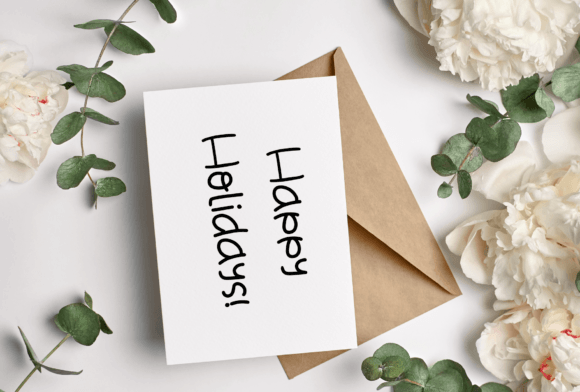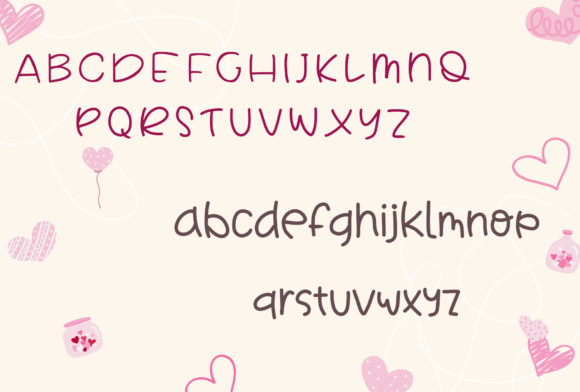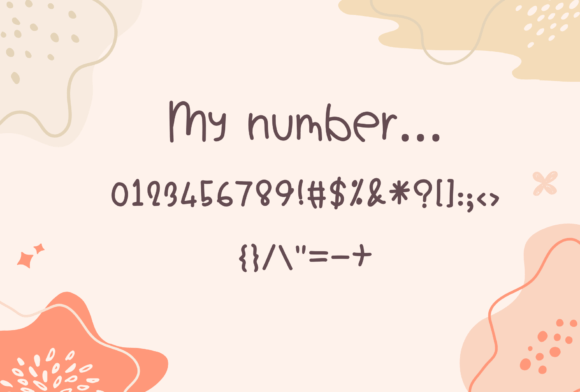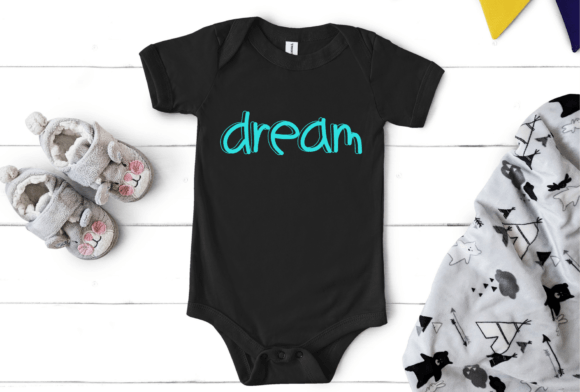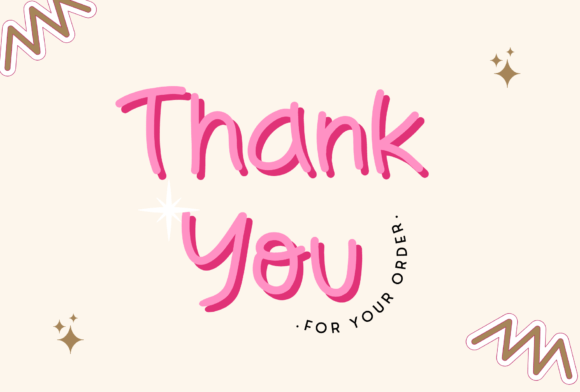
The Charm of Benjamin Font: A Designer’s New Best Friend
I’ll never forget the project that led me to discover the Benjamin Font. I was working on a children’s educational website, and my client requested a font that was both playful and easy to read. I scoured the internet, trying out font after font, but nothing seemed quite right. That was until I stumbled upon Benjamin Font. Its super cute handwriting style and simple design immediately won me over. In this article, I’ll share my experience with Benjamin Font, its features, and how to make the most of it in your designs.
- ✨ Simple yet charming handwriting style
- 🎨 Versatile and suitable for various applications, from education to advertising
- 👍 Easy to pair with other fonts due to its clean design
While Benjamin Font is an excellent choice for many projects, there are a few things to keep in mind:
- ⚠️ It may not be the best fit for very formal or corporate designs, as its playful nature might not align with the tone you’re aiming for.
- 🤔 Some users might find the font a bit too casual for certain applications, such as academic or technical writing.
The Story Behind Benjamin Font
Benjamin Font was designed with education in mind. Its creator aimed to craft a font that was both easy to read and engaging for young learners. The result is a simple, charming font that’s perfect for a variety of applications.
Q: What is Benjamin Font?
A: Benjamin Font is a super cute handwriting font with a simple style, suitable for teaching, education, advertising, illustration, and multi-purpose use.
Q: What are some common uses for Benjamin Font?
A: Benjamin Font is versatile and can be used for various applications, including education, advertising, illustration, and more.